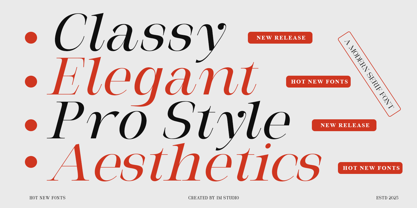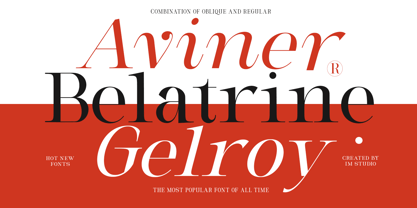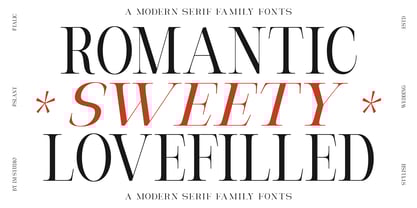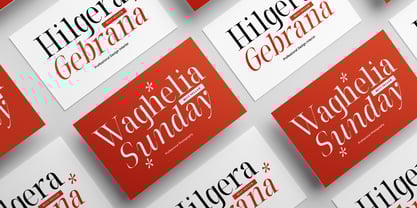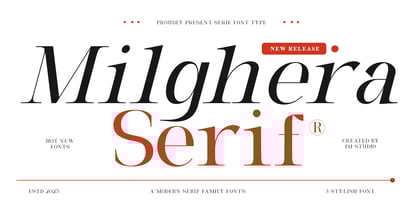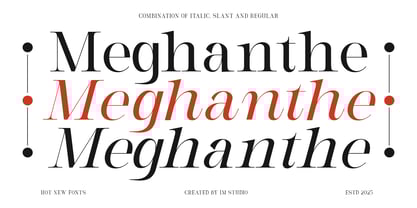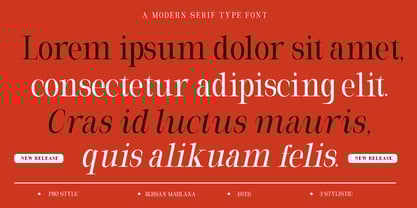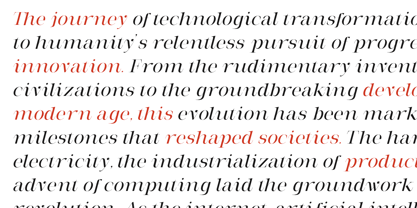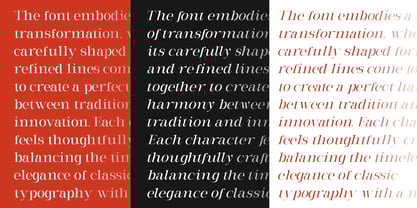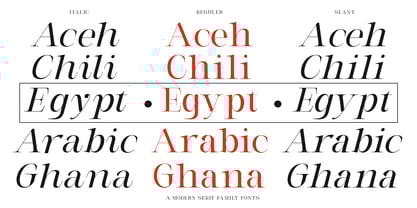
Milghera Serif
La familia tipográfica Milghera Serif fue diseñada por Ikhsan Maulana y publicada por IM Studio. Milghera Serif contiene 3 estilos y opciones de paquete familiar.
Milghera Serif is a sophisticated and charming typeface that combines classic elegance with a contemporary twist. Its gentle curves and graceful letterforms create a smooth and visually appealing flow. Enhanced with carefully crafted ligatures and alternate characters, Milghera Serif offers a unique blend of artistry and versatility. These features combine a sense of luxury and creativity, making it a great choice for branding, wedding invitations, and editorial design. With its timeless charm and harmonious blend of modern and vintage elements, Milghera Serif is the perfect typeface for those seeking character, style, and distinction.